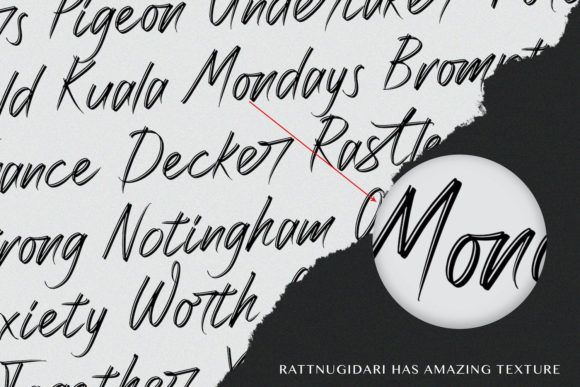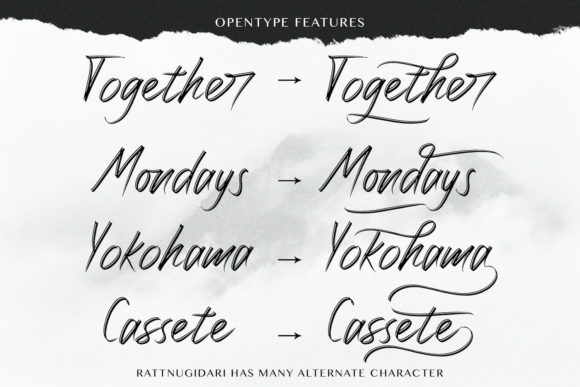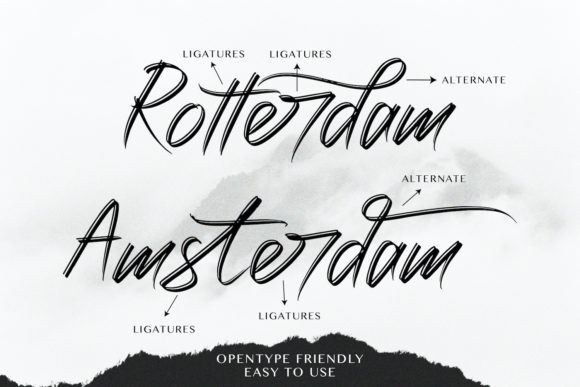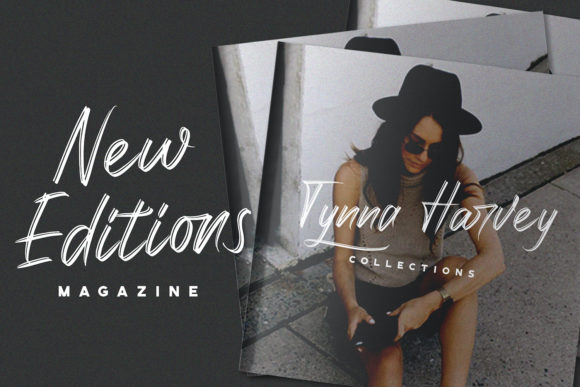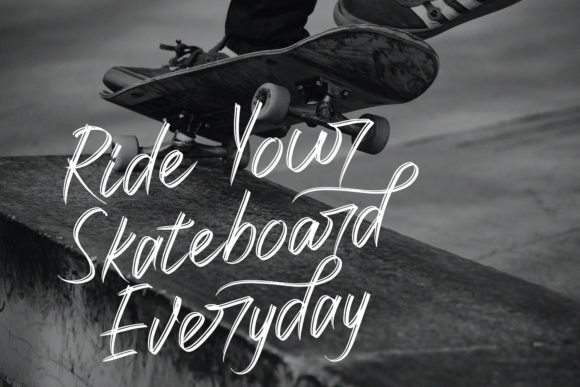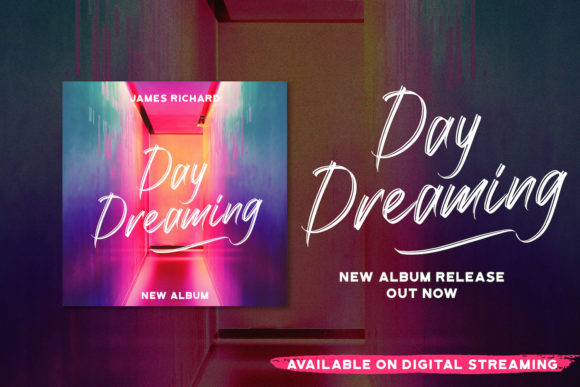
Introduction to Rattnugidari Font
There’s something magical about holding a beautifully crafted wedding invitation in your hands, the delicate script dancing across the page, setting the tone for a romantic celebration to come. For designers, this moment is all too familiar, and it’s often the result of hours spent pouring over design resources, searching for that perfect font to elevate their creative project.
Enter the stunning Rattnugidari Font, a high-quality script font that’s sure to captivate your audience and leave a lasting impression. With its smooth lines, gorgeous glyphs, and stunning alternates, this font is the ultimate design resource for any creative project. Whether you’re working on a wedding invitation, a thank you card, or a logo, Rattnugidari Font is the perfect choice for adding a handwritten touch to your design.
Key Features of Rattnugidari Font
- High-quality design resource suitable for various creative projects
- Includes a wide range of characters and glyphs, making it ideal for multilingual projects
- Designed with a unique and stylish aesthetic, perfect for adding a touch of elegance to any design
Honest Review: Rattnugidari Font
As a designer, I’m always on the lookout for high-quality design resources to elevate my creative projects. The Rattnugidari Font is one such resource that caught my attention. Let’s dive into the details.
What works well: ✨ I appreciate the transparent background of this font, which makes it easy to work with, especially when designing graphics with complex layouts. The font itself is highly customizable, allowing me to fine-tune its look to fit my design needs.
Overall, I think the Rattnugidari Font is a solid addition to any designer’s toolkit. While it may not be perfect, its strengths outweigh its limitations, making it a valuable resource for my creative projects.
How to Use Rattnugidari Font
The Rattnugidari Font is a high-quality design resource perfect for any creative project. With its unique style and transparent background, it can elevate your designs to the next level.
To get the most out of the Rattnugidari Font, try experimenting with different font sizes, colors, and combinations. You can also use it in conjunction with other design elements to create a unique look.
The Rattnugidari Font is perfect for various design projects, including:
- Brochure design
- Infographic design
Alternatives to Rattnugidari Font
Pacifico is a beautiful, high-quality script font that’s perfect for creative projects that require a touch of elegance. It features a transparent background and a classic feel, making it ideal for wedding invitations, greeting cards, and other design elements. When to use: for projects that need a sophisticated and elegant touch.
Comparison to Rattnugidari Font: Pacifico has a more refined and delicate look compared to Rattnugidari Font, which has a more playful and whimsical feel.
Great Vibes is a modern and stylish script font that’s perfect for design projects that require a fun and energetic vibe. It features a transparent background and a dynamic feel, making it ideal for posters, social media graphics, and other design elements. When to use: for projects that need a bold and attention-grabbing look.